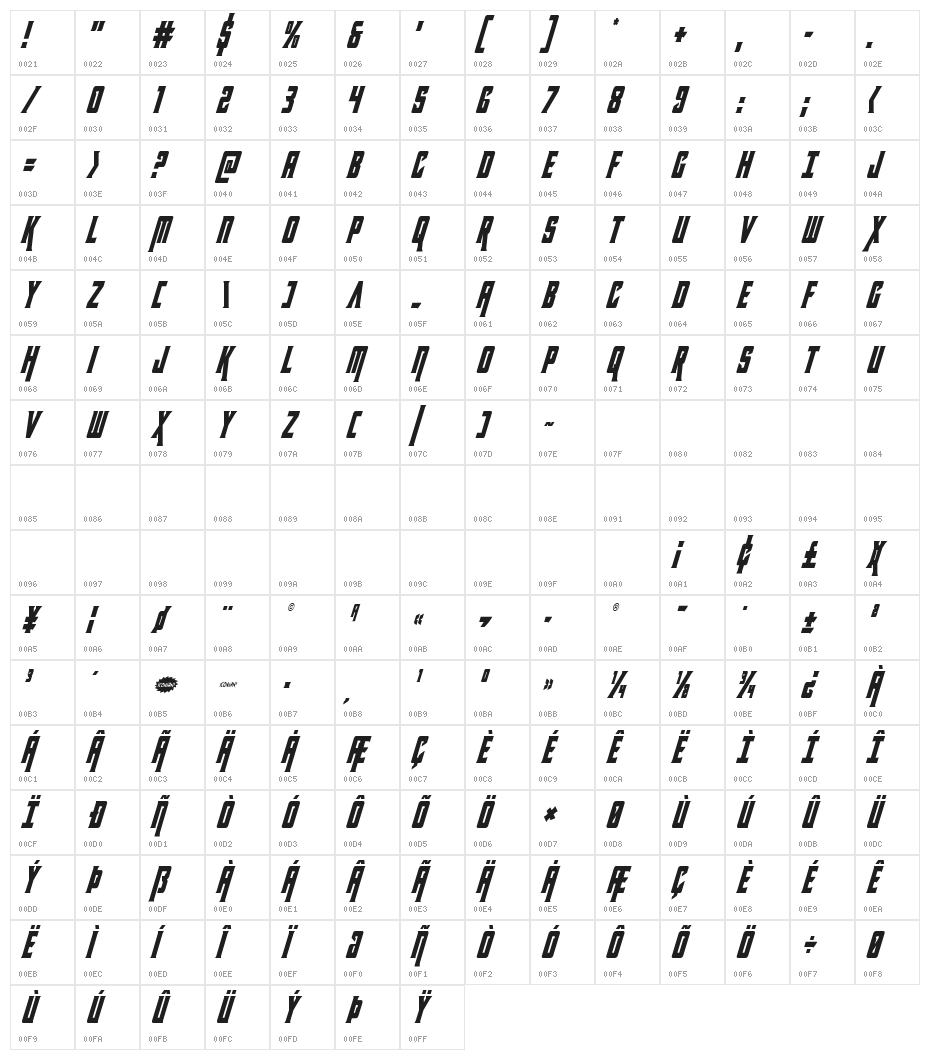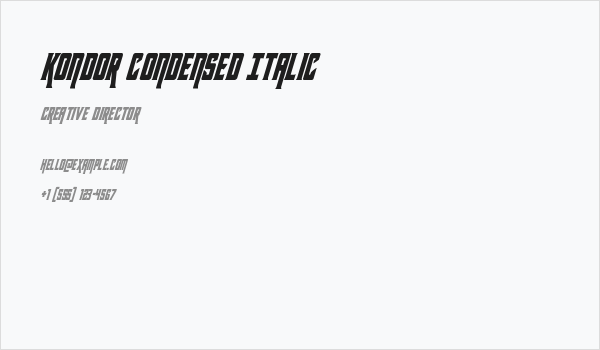
Kondor Condensed Italic Font
Kondor Condensed Italic Description
This font features a bold and dynamic style with a strong italic slant, giving it a sense of motion and energy. The condensed letterforms are tightly spaced, enhancing its compact and impactful appearance. The strokes are thick and consistent, providing a high contrast that makes the characters stand out prominently. The angular design and sharp edges contribute to a modern and edgy aesthetic, making it suitable for attention-grabbing headlines and titles. The numerals and special characters maintain the same bold and slanted characteristics, ensuring uniformity across all glyphs.
| Proposed Projects | Ideal for sports branding, action movie posters, dynamic advertisements, and modern logo designs. |